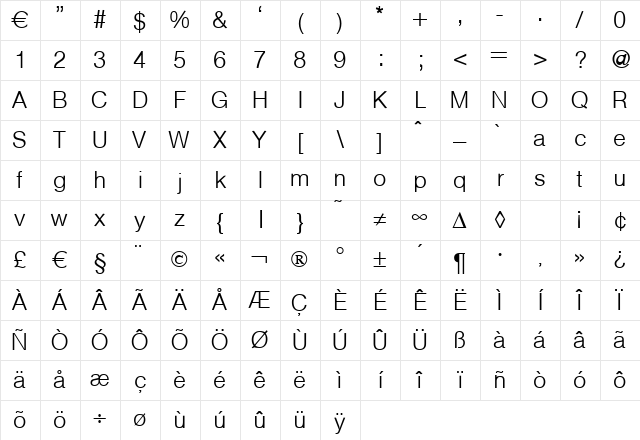
HegelLight Regular Free Font
Design Context for HegelLight
HegelLight is a composed and adaptable typeface that performs quietly and consistently across a wide range of design contexts. Its slender proportions lend an understated elegance to any composition.